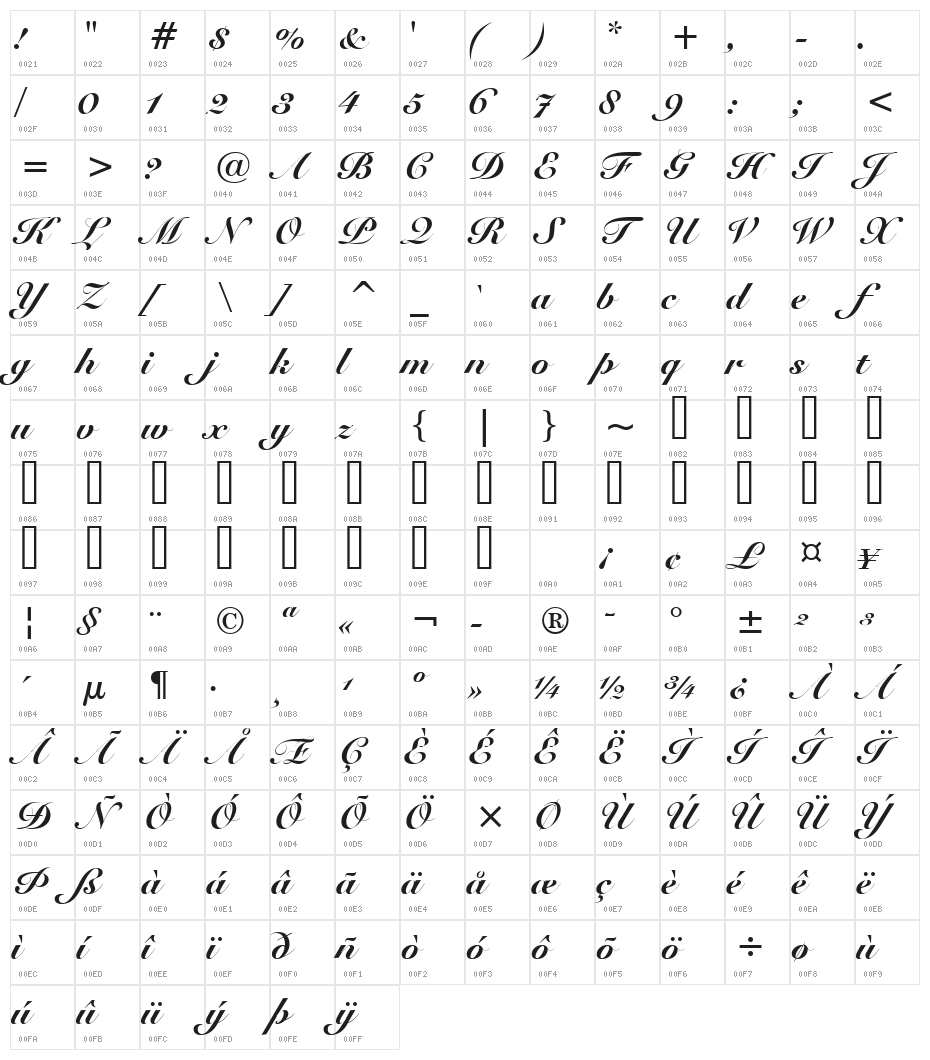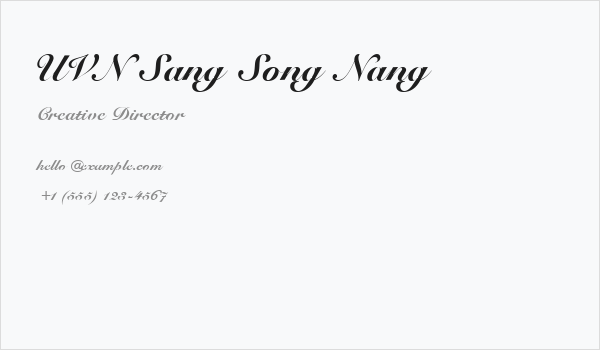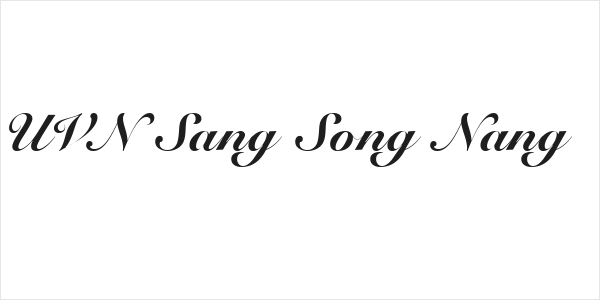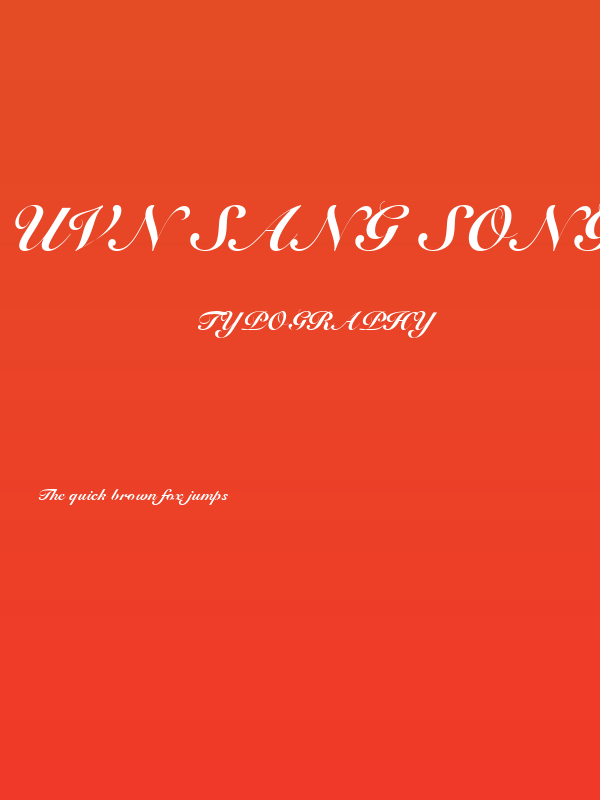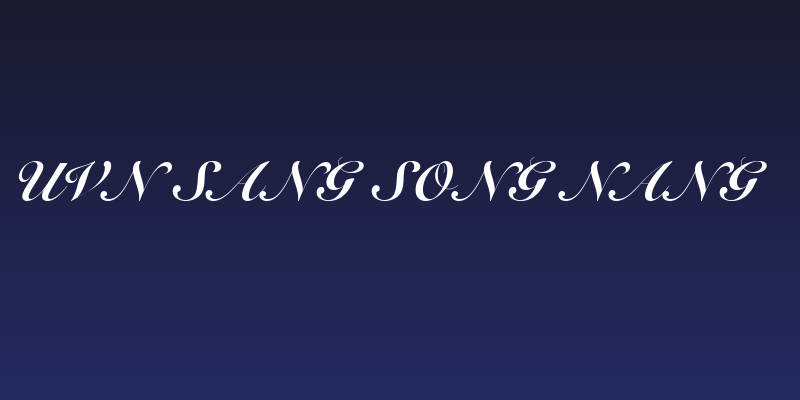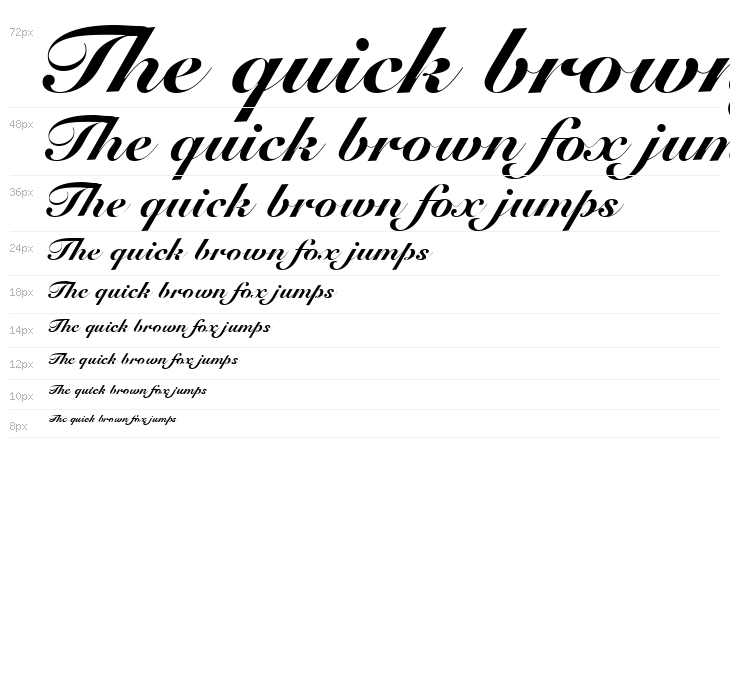
UVN Sang Song Nang Font
UVN Sang Song Nang Description
This elegant script font features a flowing, cursive style with high contrast between thick and thin strokes. The uppercase letters are ornate, with sweeping curves and flourishes that give a sense of sophistication and grace. The lowercase letters maintain a consistent style, with smooth connections between characters, enhancing readability while retaining an artistic flair. The numerals are designed to match the overall aesthetic, with similar curves and contrasts. Special characters are included, each crafted to complement the font's overall style, making it versatile for various design needs.
| Overall Style | Elegant, Sophisticated |
| Proposed Projects | Ideal for wedding invitations, luxury branding, elegant packaging, and formal event materials. |